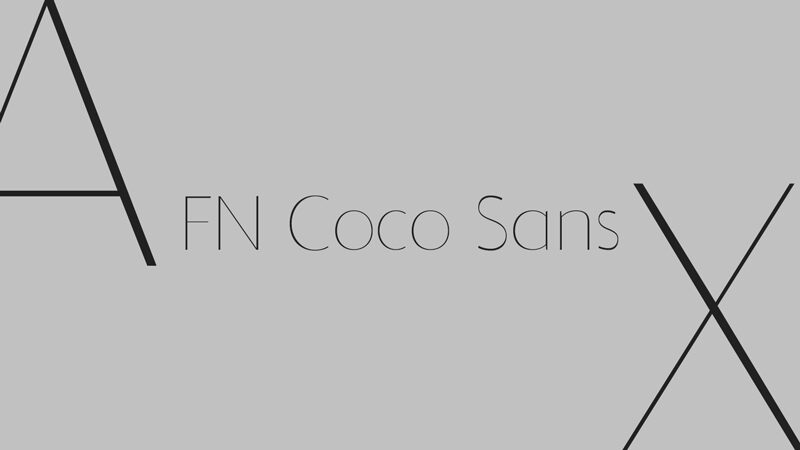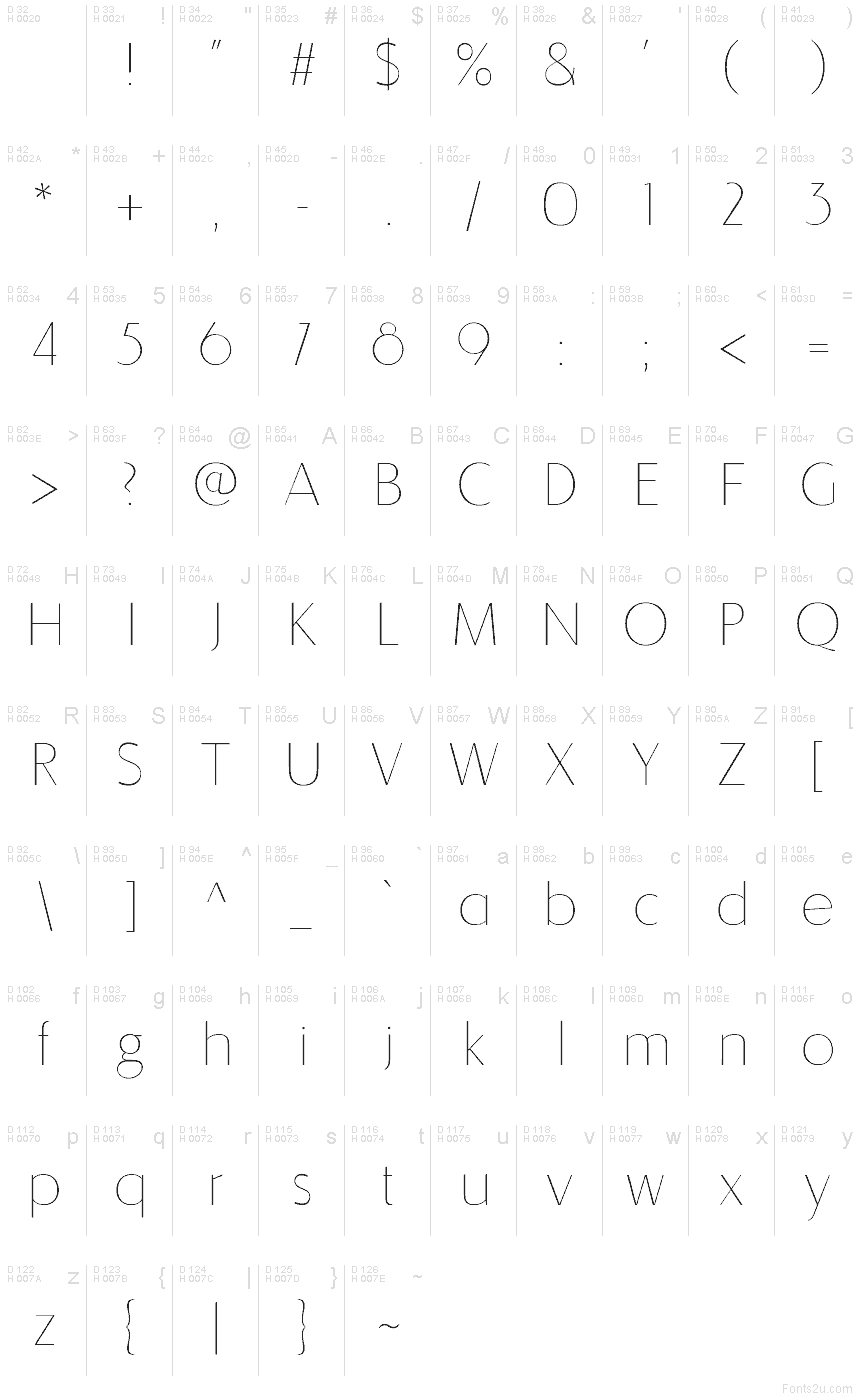
FN Coco Sans Thin
FN Coco Sans Thin font by FN FONT is a free sans serif typeface that solves the “too delicate to be useful” problem common to ultra-light styles. Its hairline strokes stay calm and even, with smooth circular forms and clear, straight stems that feel crisp rather than brittle. Generous spacing in the FN Coco Sans family keeps the rhythm airy, so headings look refined without disappearing.
Using FN Coco Sans Thin, you can give fashion branding, lookbooks, portfolio sites, editorial spreads, packaging, posters, and social posts a cool, glassy minimalism. It shines on large headlines and logotypes where precision matters. Pair this free font with FN Coco Sans Regular for body text, or tighten tracking slightly at oversized titles to sharpen the silhouette.